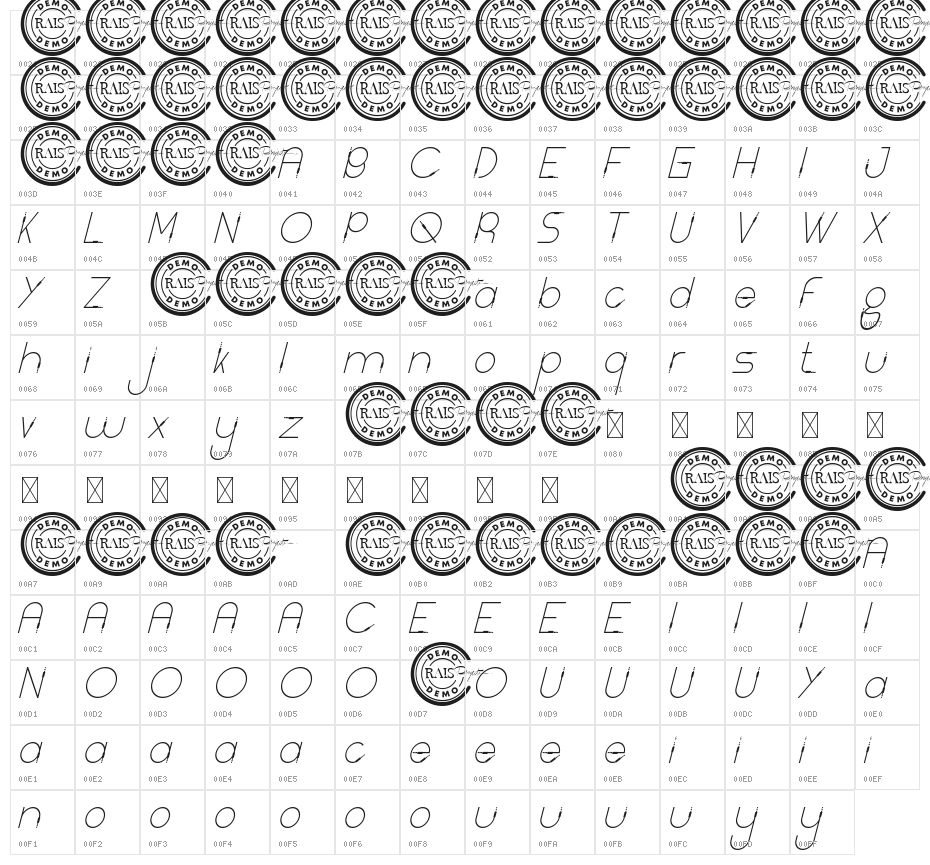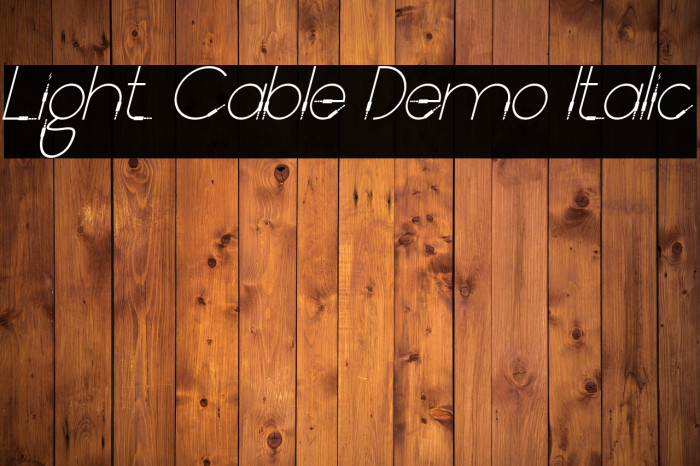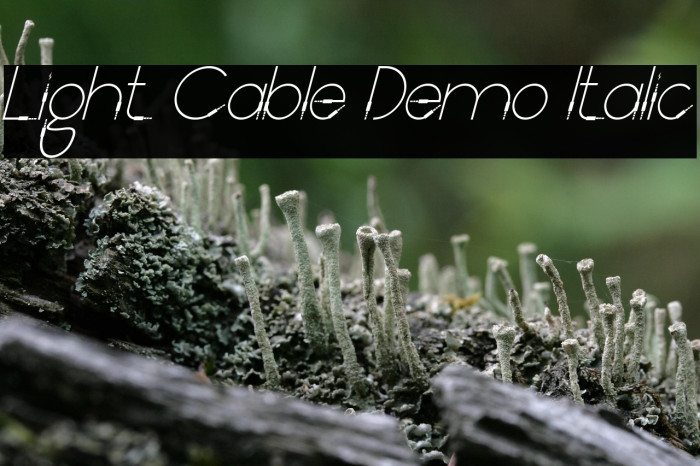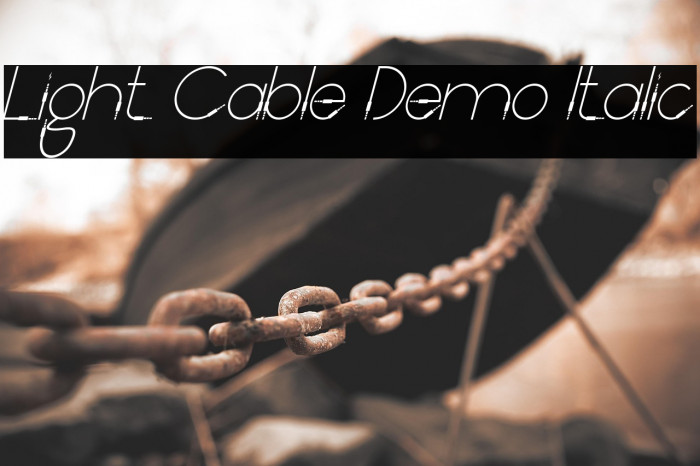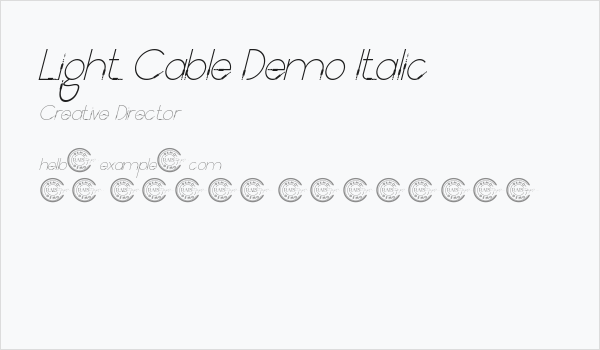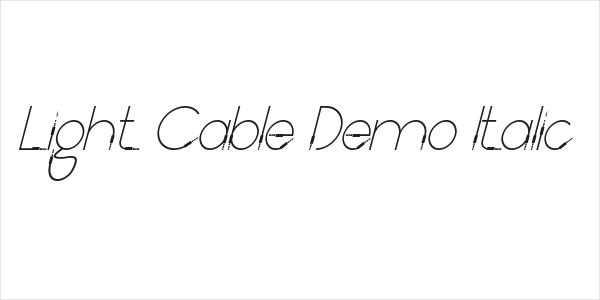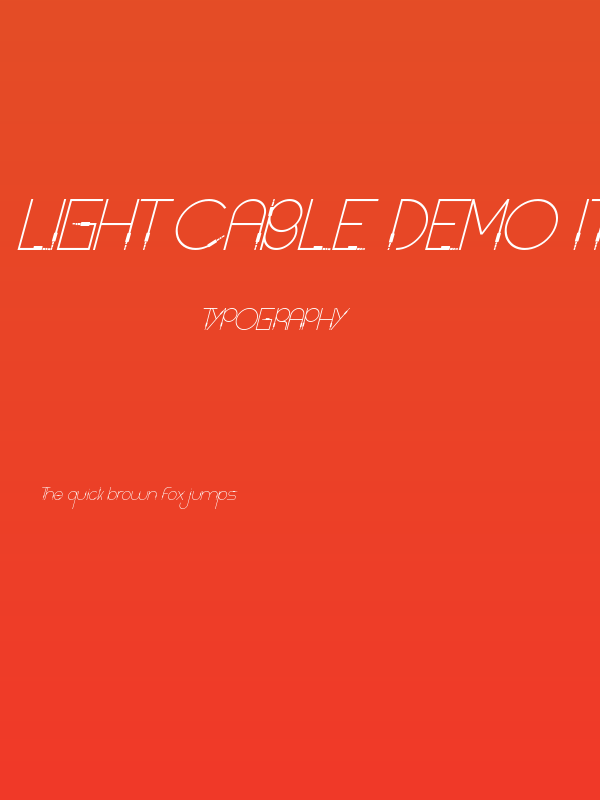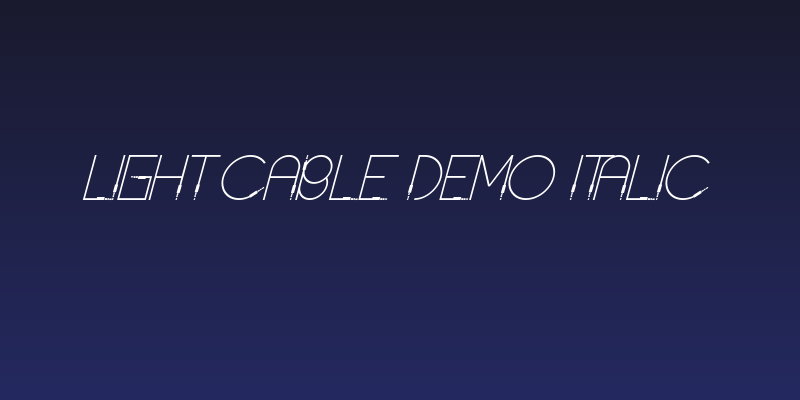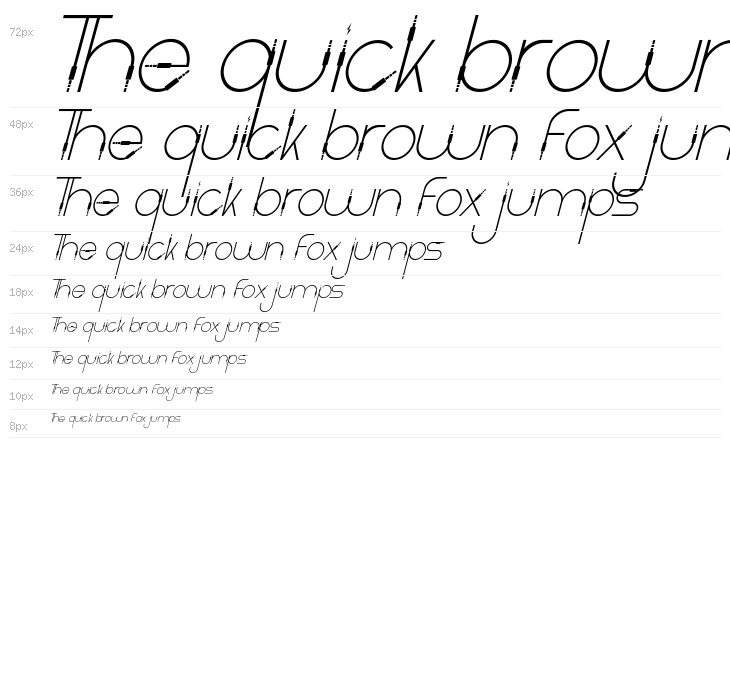
Light Cable Demo Italic Font
Light Cable Demo Italic Description
This font features a sleek, modern design with a distinct italic slant, giving it a dynamic and forward-moving appearance. The characters are composed of thin, elegant strokes with a consistent width, creating a sense of uniformity and balance. The overall style is minimalistic, with a slight futuristic touch, making it suitable for contemporary design projects. The uppercase and lowercase letters maintain a cohesive look, while the numerals and special characters are designed to complement the alphabet seamlessly. The font's clean lines and subtle curves make it versatile for various applications.
| Use Case | Headlines, Logos, Digital Interfaces |
| Proposed Projects | Ideal for branding, editorial design, digital interfaces, and modern advertising. |